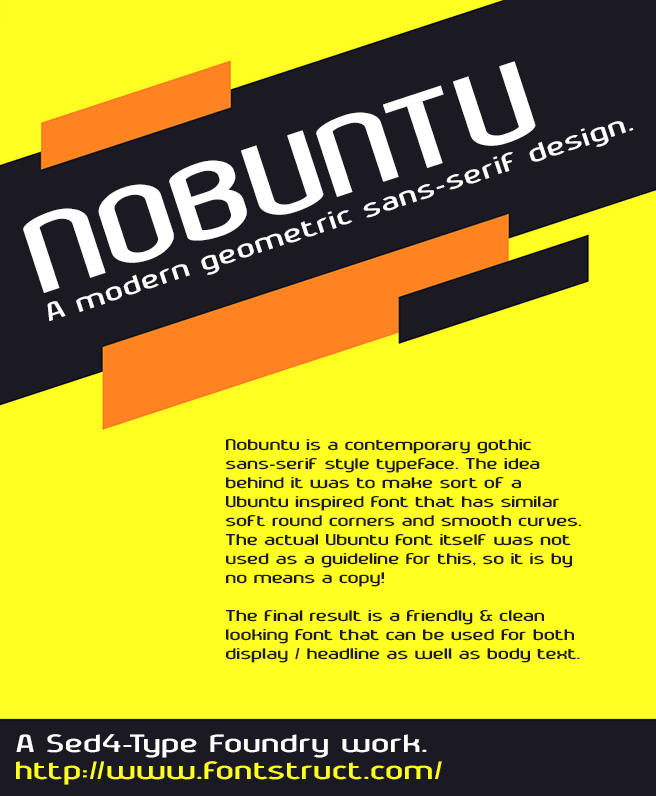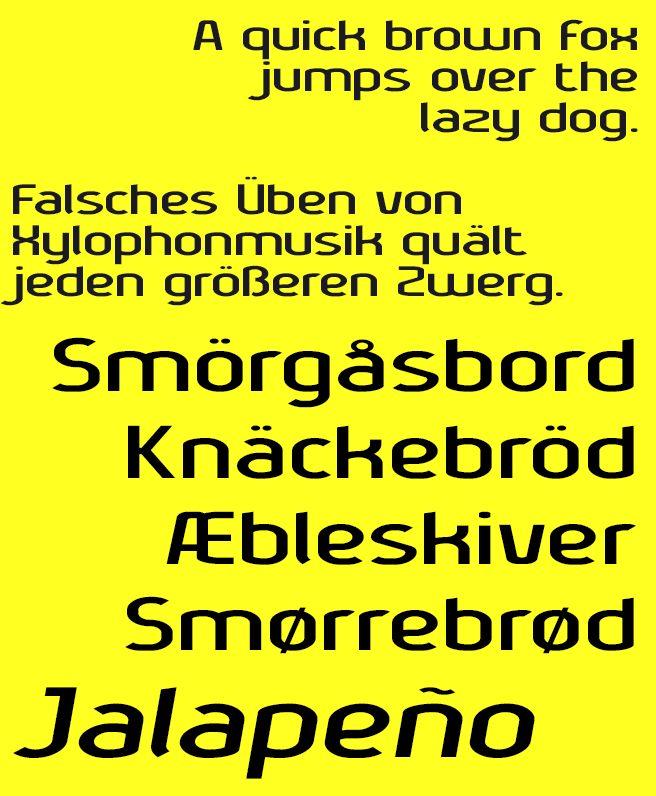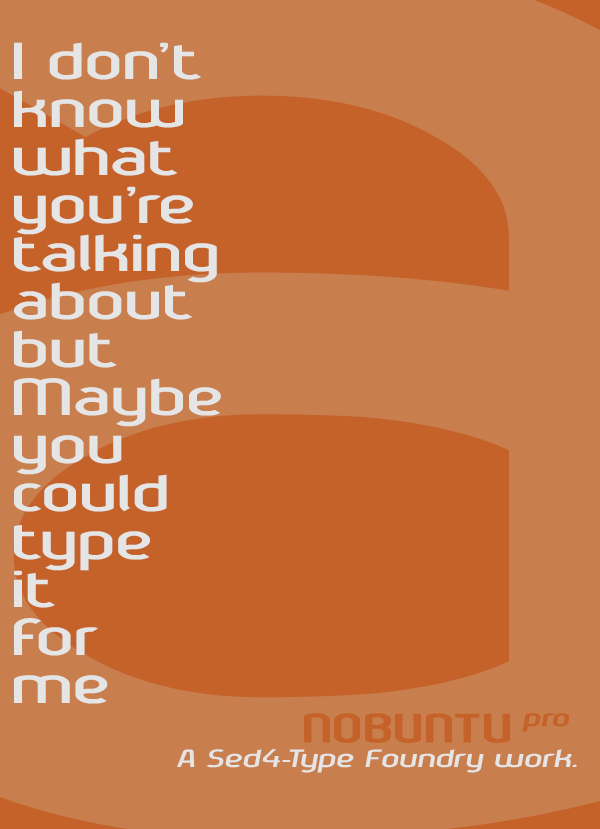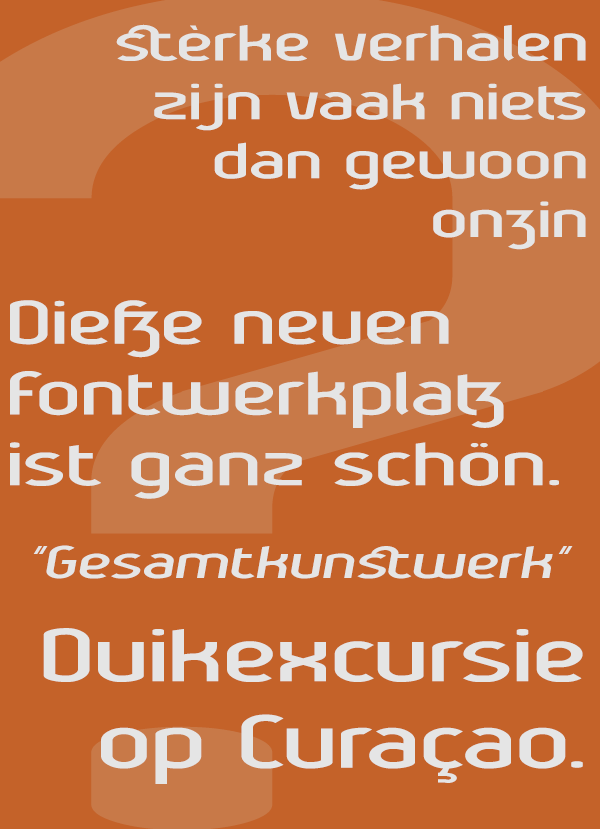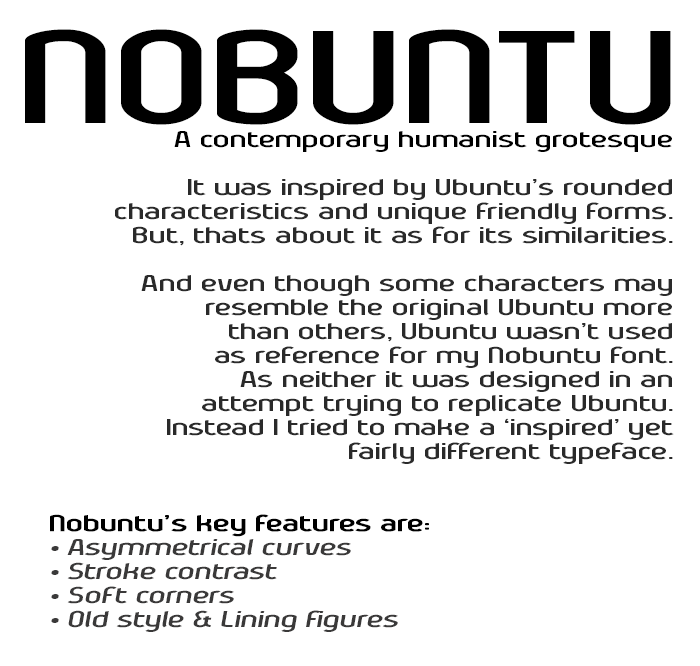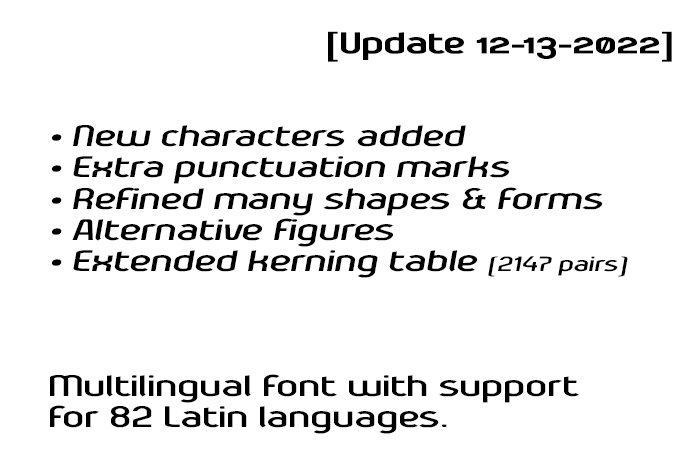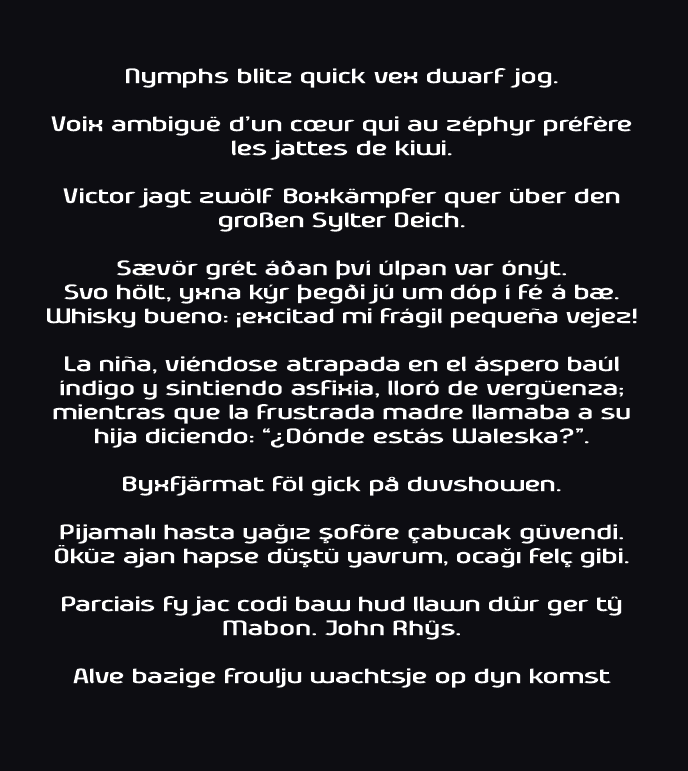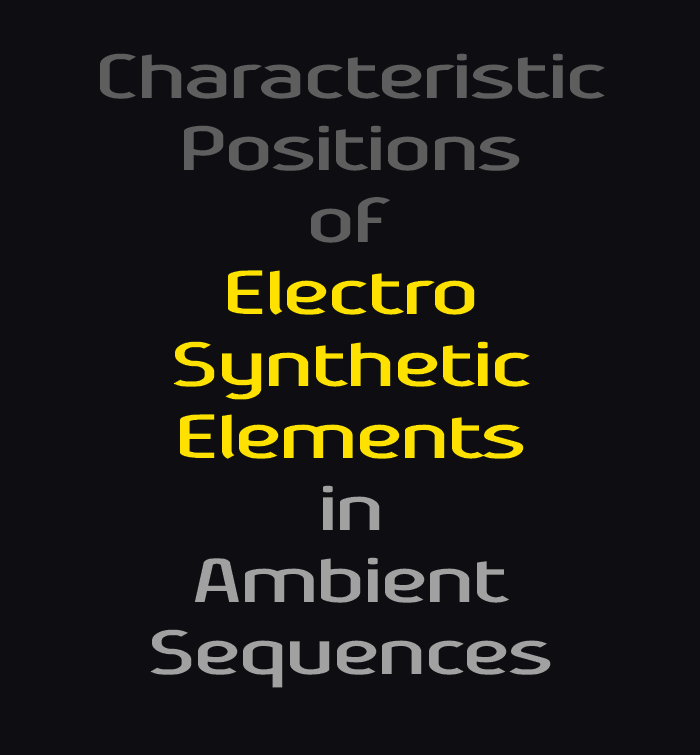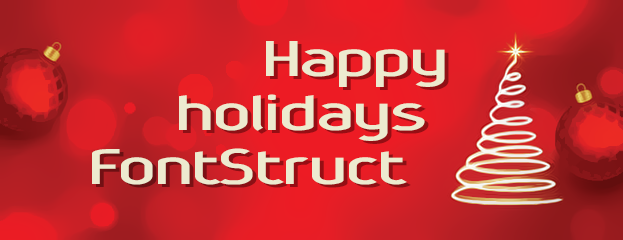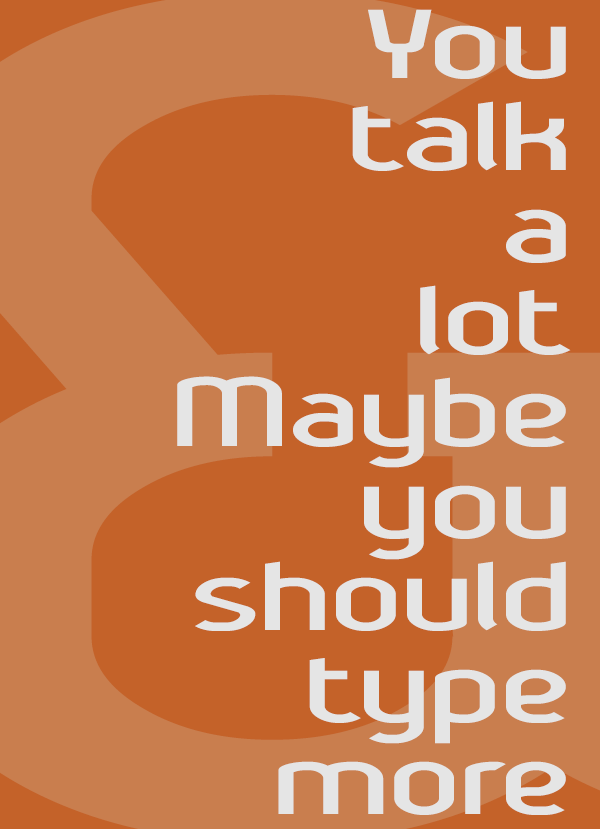
NOBUNTU (Pro) - Contemporary humanist sans style typeface.
Updated version of my previously published NOBUNTU font. This version includes much more characters, symbols, many ligatures, as well as language support for most Latin languages.
It is a medium weight, contemporary geometric gothic humanist sans-serif style design with rounded corners and smooth curves. All curves have a slight top & bottom overshoot. The basic Latin string, numerals and punctuation are fully kerned as well as the majority of important characters in the extended Latin string. But some still need a slight adjustment.
The basic idea was inspired by the gentle round corners seen in the Ubuntu and other similar fonts. (But don't make any mistakes, it is most definetly a different font) ;)
So far I am very pleased with the clean and legible result.
246 Glyphs and counting.
At this point I think I broke my own personal FS record of most glyphs in a font. I don't know how far I will continue to extend the language support, since more glyphs all adding up to the already miserable task of kerning within FS itself. But I'm most certainly not finished yet.
The characters in the basic Latin block, numerals and punctuation are fully kerned, as well as the majority of important characters in the extended Latin block. But some still need a slight adjustment. (this will be happening in the following days.
I will probably add another small number of characters that are still missing. But it is reaching the end of development by now. I hope you like it.
Some ligatures and accents at work.
I load the font into FontLab which features a tool called "Quick Test As".
This opens the character set into a basic text formatting tool that is also selectable. Allowing me to copy a certain/or the full glyphset to the clipboard. This is pasted into a secondairy tool online to generate all "two-character" combinations from the selected characters. The output data from this again gets copied into another tool that deletes all line breaks generated in the previous step. The output data from this step gets copied once more into a 3rd online tool which removes all whitespace.
These 3 steps now should have generated a continuous line of character combinations.
This gets copied into notepad in order for me to isolate every combination string for a certain character. Which I do by adding back in a line break after each last character in the specific sequence. (Usually I put the underscore at the end of a string since its stands out the most. Which ofcourse had to be done in the very first step simply by making sure underscore is the last character in the selection. Anyway, this simply is making it more easy to see the next location for a line break in a continuous string of text)
once I have each combination string seporated by a line break my template for kerning is ready to be copied into FS's kerning tool.
Reading this at first u might think that it is a whole lot of work just to get ready to kern, But its actually pretty straight forward and fairly quickly done.
I'm aware that it is much easier to skip kerning within FS and go straight to work in FontLab. but I simply want my fonts here @ FS to be decent as well. So for this reason I choose to do it the hard way, which is within FS itself.
Those recent small grid designs were mostly heavily aimed at achieving seamless transitions in stroke width and getting the best possible curvatures, close to a true Bezier, while still maintaining simplicity in the basic letterforms. Sometimes this only made up for a pretty boring final result, but these were so very educative for me that I'm very glad I did them nonetheless! :)
• Numerous refining adjustments were made to various individual characters.
• Extra characters added (Language support for 77 languages)
Now 93 languages are supported!